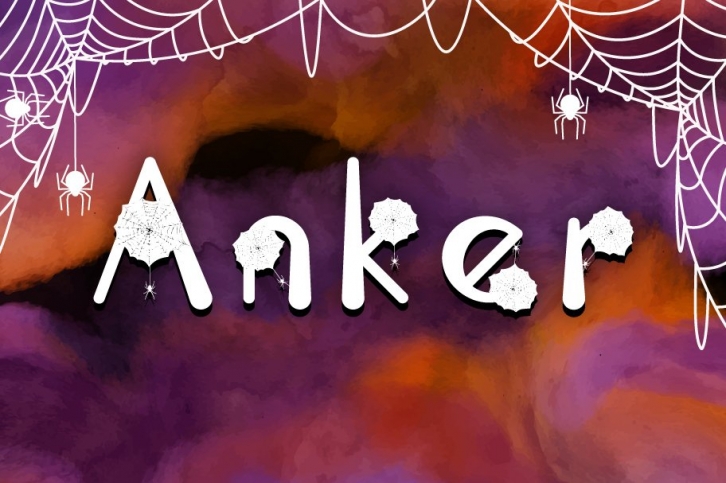
Anker Font is best used for headings, logotype, quotes, apparel design, invitation, poster, flyers, greeting cards, packaging, book cover, printed quotes, cover album, movie, & etc
Perfect if you need a dose of fun in your project.